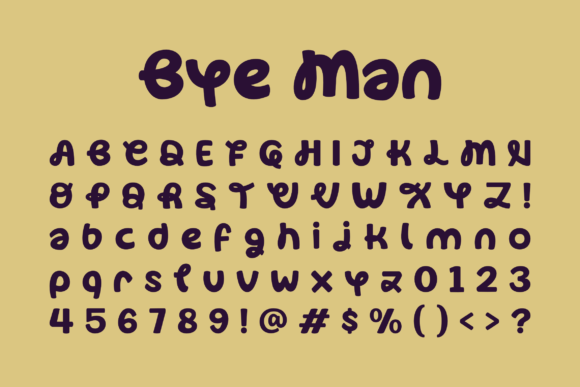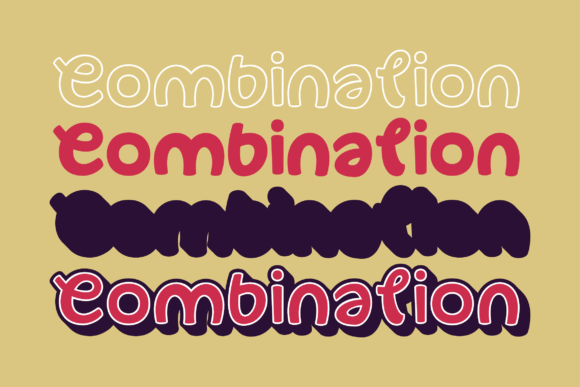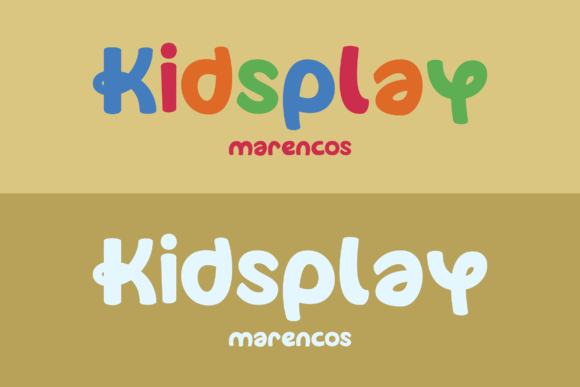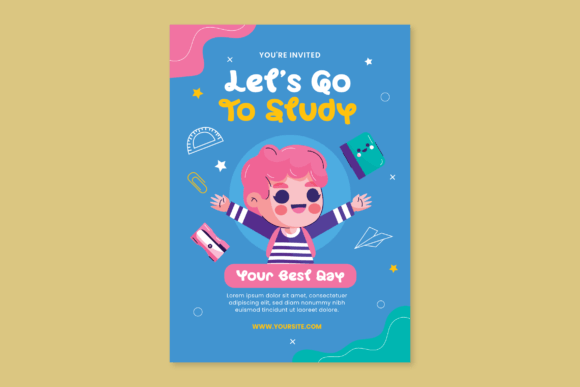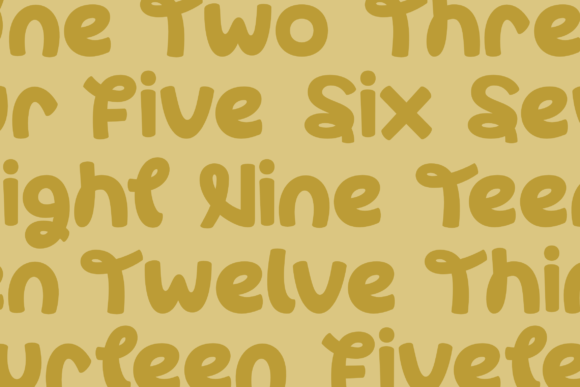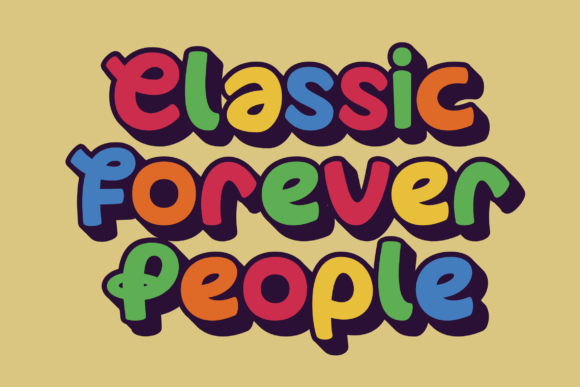
Unleashing the Power of Bye Man Font
Do you remember the moment when you first stumbled upon the perfect font for a project? Maybe it was a quirky display font that added a dash of personality to your design, or a clean sans-serif that gave your text a professional edge. For designers, finding the right font can be a game-changer, and that’s exactly what we’re excited to share with you today.
Meet Bye Man Font, a display font that’s equal parts bold and unique. With its playful letterforms and versatility, Bye Man Font is perfect for anything from birthday invitations to children’s t-shirts, logos, headlines, and posters. And the best part? It’s PUA encoded, making it a breeze to access all of its glyphs and swashes. Whether you’re a seasoned designer or just starting out, Bye Man Font is a valuable addition to your toolkit.
Bye Man Font Key Features
- Font Family: Bye Man Font is a sans-serif font family.
- Size: The Bye Man Font family comes in 6 font weights: Thin, Light, Regular, Medium, Bold, and Black.
- Resolution: Supports high-resolution displays, making it suitable for use in various digital mediums, including print and screen.
- Unique Characteristics: Bye Man Font features a unique blend of modern and vintage elements, with distinctive letterforms and a neutral tone.
- Language Support: Supports multiple languages, including Latin, Cyrillic, and Greek alphabets.
Bye Man Font Review
I recently had the chance to dive into the Bye Man Font, and here’s my honest take on it.
- The font’s unique, quirky design makes it perfect for adding a touch of personality to your designs. Whether it’s a logo, poster, or social media graphic, Bye Man Font is sure to stand out.
- The font’s wide range of weights and styles offers a lot of flexibility, making it easy to adapt to different design contexts.
- The font is highly customizable, with many glyphs available for download and manipulation.
- Unfortunately, the font’s irregular shape and unusual letterforms may not be suitable for all types of text-based content, such as articles or news stories.
- The font may be difficult to read in smaller sizes or at a distance, which could limit its use in certain applications.
- The font’s quirky design may not be to everyone’s taste, and some users may find it distracting or unprofessional.
Overall, I think the Bye Man Font is a great choice for designers looking to add some personality and whimsy to their work. While it may have some limitations, its unique design and flexibility make it a valuable addition to any design toolkit.
For best results, use the “Bye Man Font” in bold or italic styles to add emphasis.
– Creating eye-catching headings and titles.
– Adding a touch of personality to your branding and marketing materials.
– Using as a creative element in social media graphics and posts.
Alternatives to “Bye Man Font” for Designers
Great Vibes is a modern, elegant script font that is perfect for creating a friendly and approachable atmosphere. It is ideal for use in logos, branding, and advertising materials. Great Vibes is similar to Bye Man Font in its cursive style, but it has a more refined and sophisticated look.
Dancing Script is a beautiful, flowing script font that is great for adding a touch of elegance and sophistication to designs. It is perfect for use in wedding invitations, announcements, and other formal events. Dancing Script is similar to Bye Man Font in its dynamic and expressive style, but it has a more formal and refined look.
Alex Brush is a elegant, handwritten font that is perfect for creating a personal and intimate atmosphere. It is ideal for use in quotes, captions, and other text-based designs. Alex Brush is similar to Bye Man Font in its cursive style, but it has a more subtle and understated look.
Pacifico is a beautiful, modern script font that is perfect for creating a relaxed and beachy atmosphere. It is ideal for use in logos, branding, and advertising materials. Pacifico is similar to Bye Man Font in its cursive style, but it has a more casual and laid-back look.